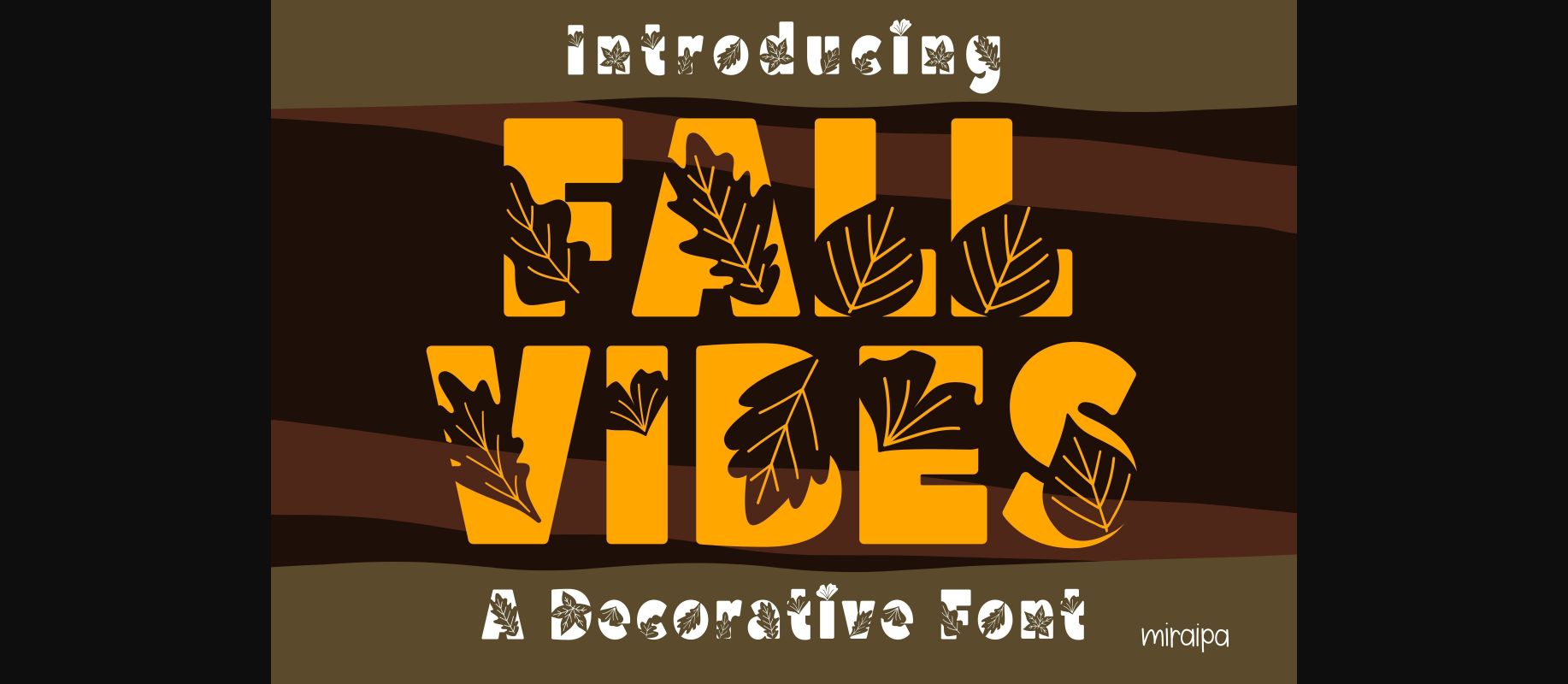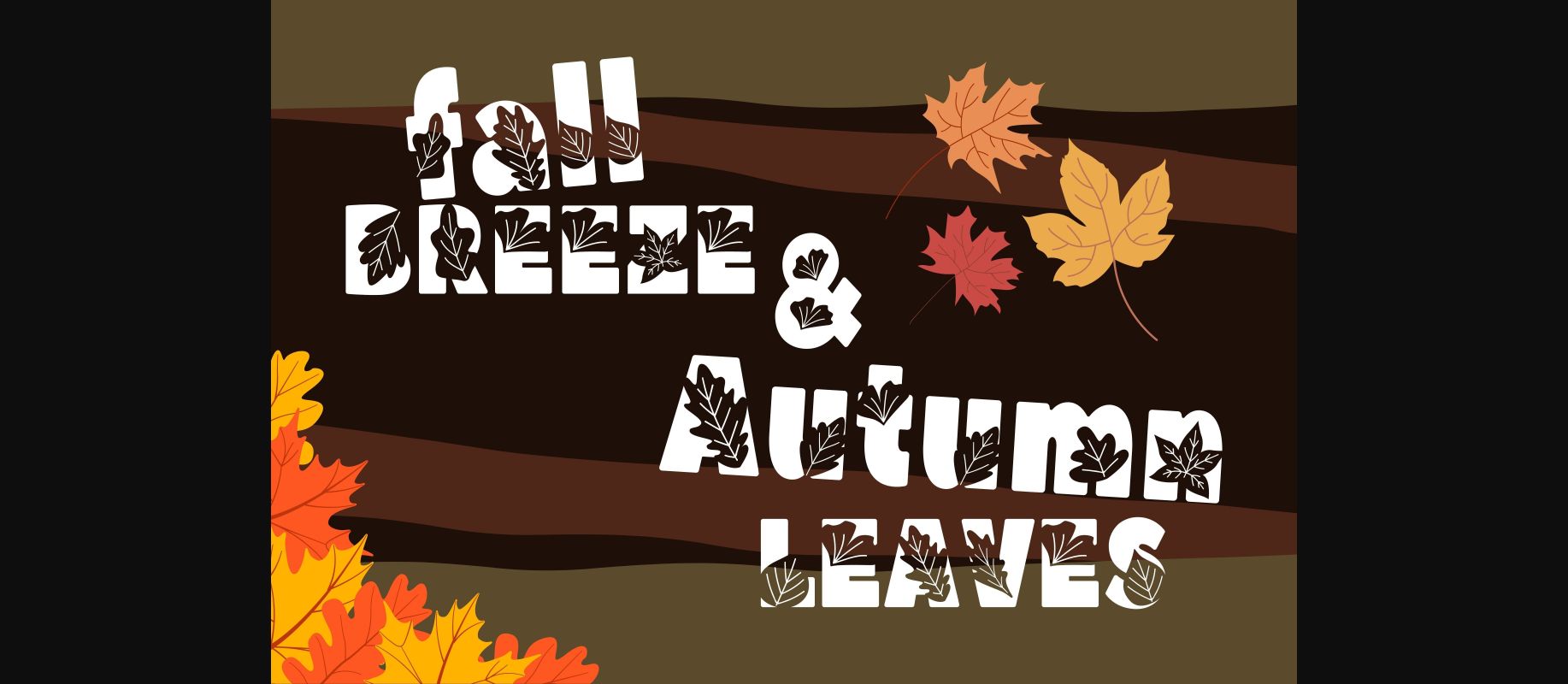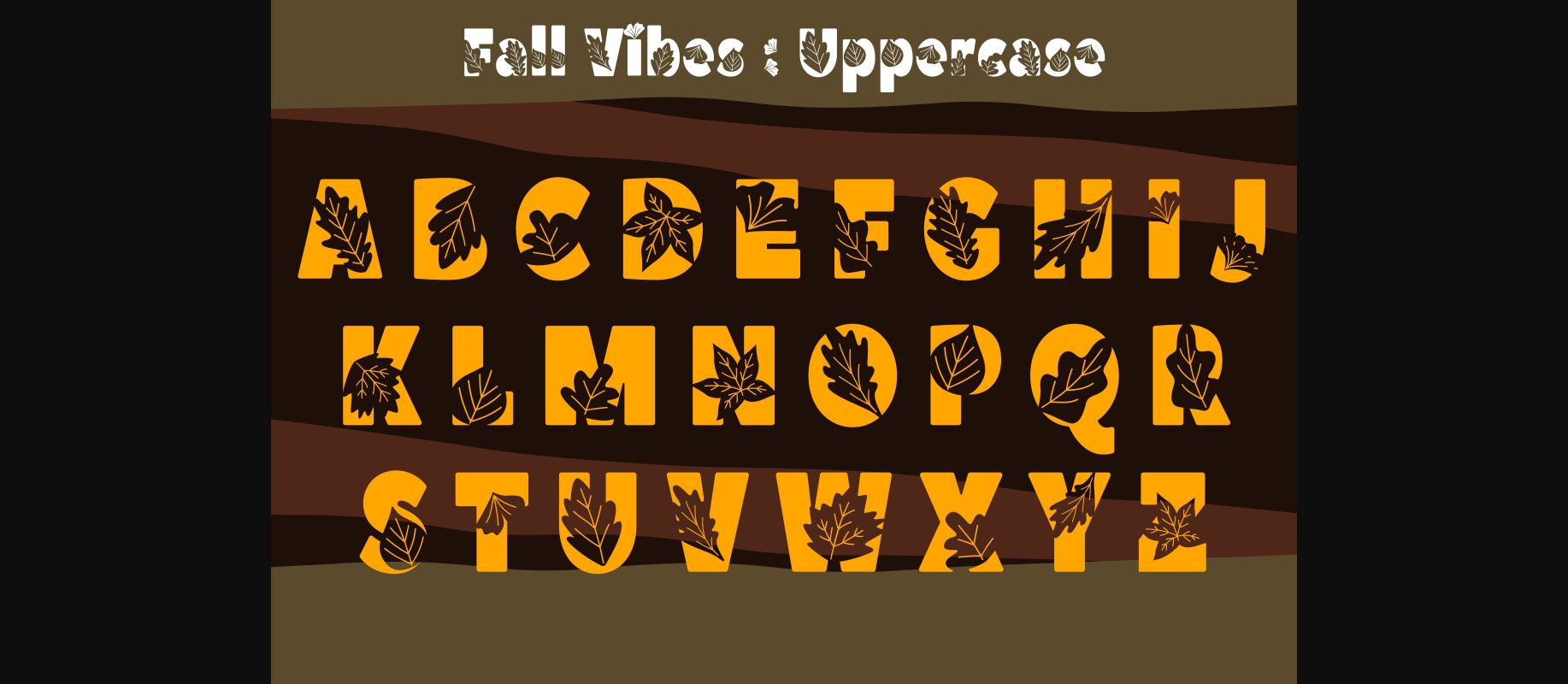
About Fall Vibes Font
Fall Vibes is a decorative font designed in a friendly and lovely style. It would be awesome for projects projecst related to fall, autumn, weddings, back-to-school, party decorations, party invitations, posters, blogs, clothing, greeting cards, social media posts, or anything that needs a friendly touch. Add it now to your fonts library, and it will bring your DIY projects to life!